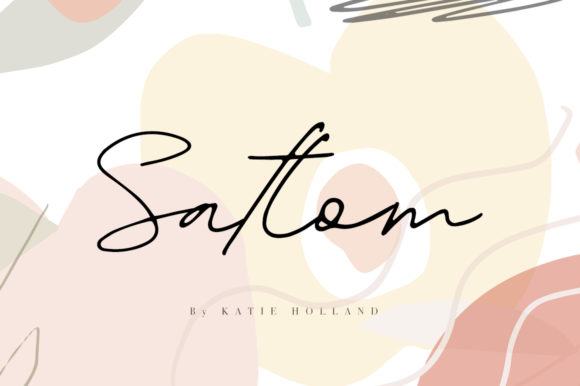
In the realm of typography, Satlom Font stands as a radiant constellation, illuminating your designs with a celestial grace. This script font, crafted by the visionary artist Katie Holland, wields the power to transform your creative endeavors into masterpieces.
Satlom's essence lies in its delicate strokes, reminiscent of a dancer's graceful movements. Each letter flows effortlessly into the next, creating an enchanting symphony of lines that captivates the eye. This font possesses an innate ability to elevate any design, whether it be a heartfelt greeting card, an eye-catching poster, or a captivating logo.
Immerse yourself in a universe of infinite design possibilities with Satlom Font. Its versatility knows no bounds, allowing you to effortlessly weave it into any project, regardless of its theme or style. Whether you seek an elegant touch for a wedding invitation, a touch of whimsy for a children's book, or a contemporary edge for a corporate presentation, Satlom rises to the occasion with unparalleled charm.
Unleash your creativity and embark on a journey of self-expression with Satlom Font. Its signature appearance beckons you to explore new design horizons, to push the boundaries of your imagination. Let Satlom be your muse, guiding you towards a world where words dance with elegance and visual harmony reigns supreme.